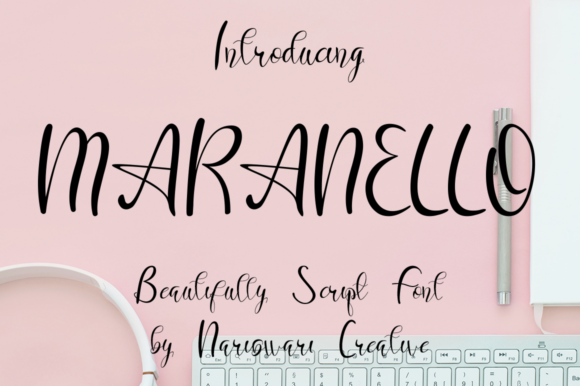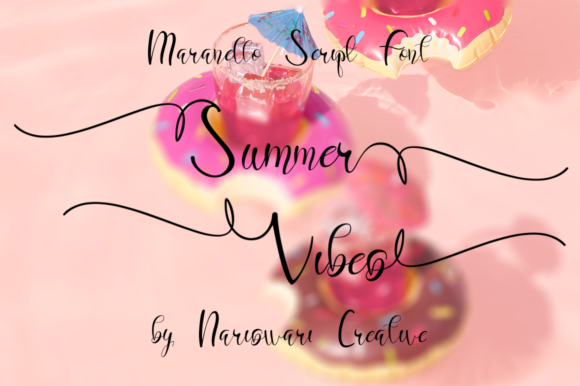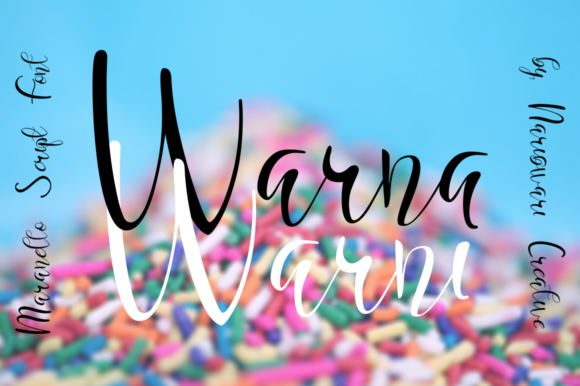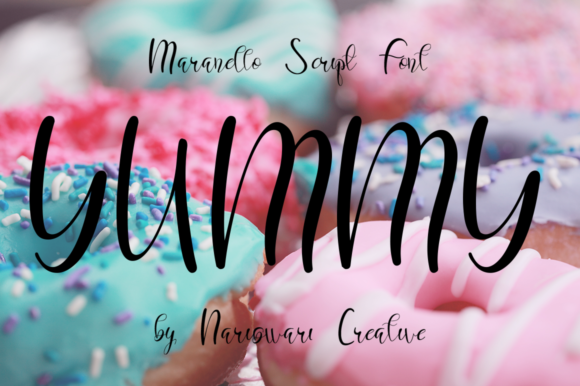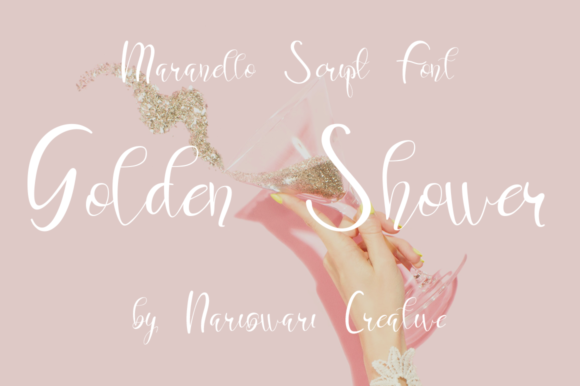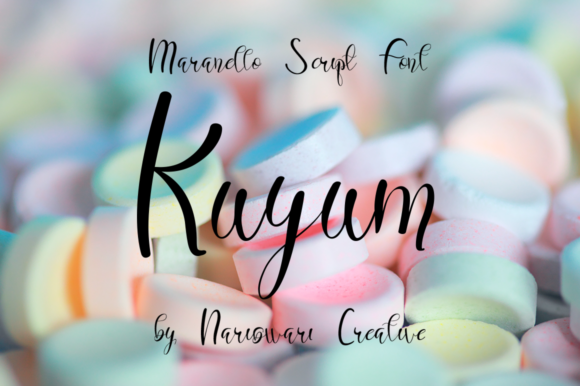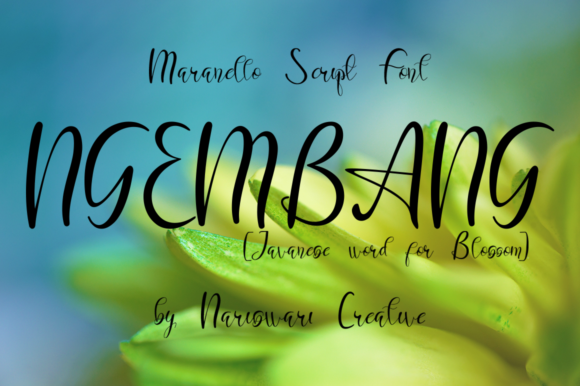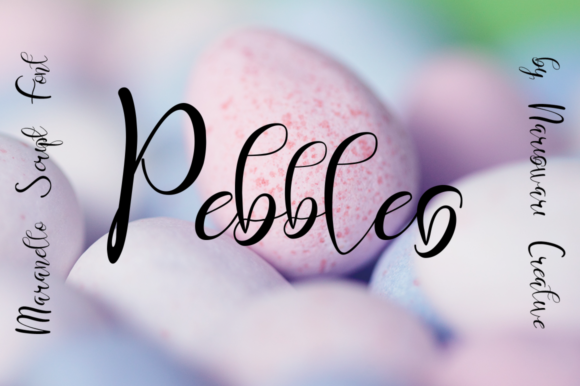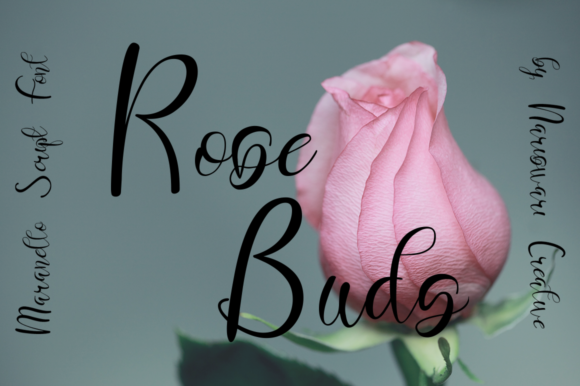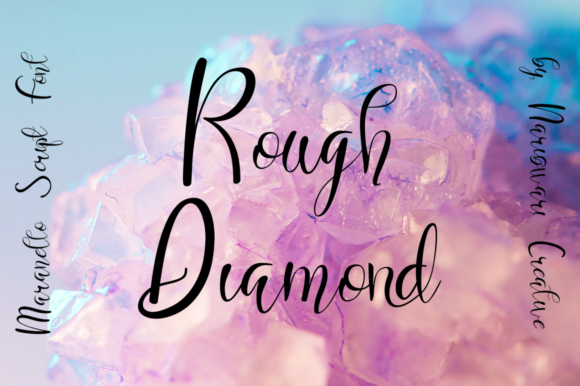
Maranello Font
About Maranello Font
Maranello is an incredibly unique and beautiful handwritten font. This font is PUA encoded which means you can access all of the glyphs and swashes with ease! It features a varying baseline, smooth lines, gorgeous glyphs and stunning alternates.